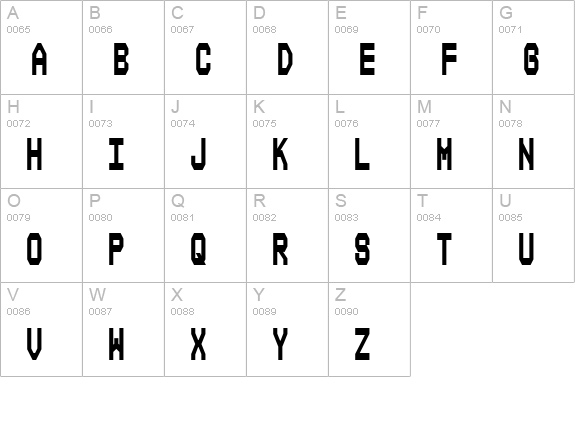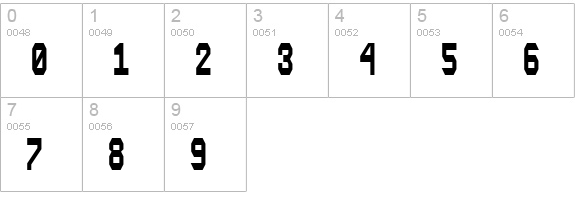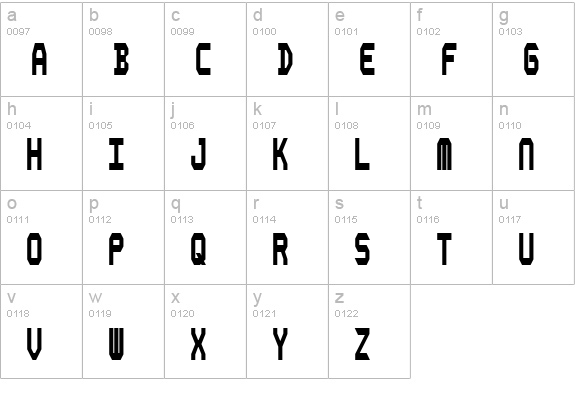
Composite ExtraBold is an extra-heavy, attention-grabbing variant in the Composite typeface family \xE2\x80\x94 well suited to high-impact headlines, posters, and bold branding.
Composite ExtraBold is a striking and bold typeface that exudes strength and confidence. With its commanding presence and modern aesthetic, this font is perfect for making a bold statement in any design project. The thick strokes and clean lines of Composite ExtraBold create a powerful visual impact that demands attention. What's more, Composite ExtraBold is available for free download at FontsMarket.com. This means you can easily incorporate this impressive font into your projects without any cost. Whether you're designing a poster, logo, or website, Composite ExtraBold is sure to make a lasting impression with its bold and impactful design. Download this font today and take your designs to the next level!